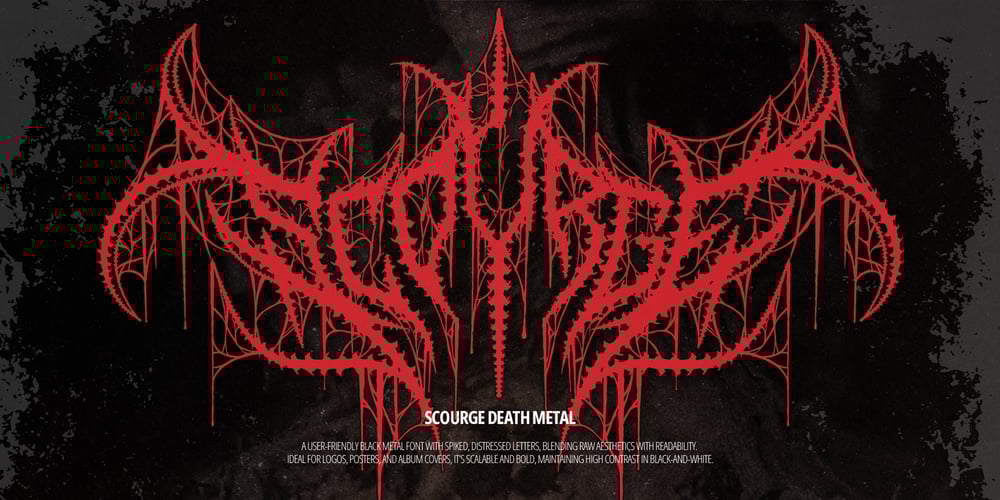
Scourge
Scourge font
Scourge Font Family was designed by Dede Nugraha and published by Denustudio. Scourge contains 1 styles and family package options. Scourge | Death Metal Font, from Denustudios, suitable for any projects such as: logos, branding projects, homeware designs, product packaging, mugs, quotes, posters, shopping bags, t-shirts, book covers, name card, invitation cards, greeting cards, label, photography, watermark, special events, and all your other lovely projects that need a Death Metal Font taste.===========================================================================What’s Included : Regular and Italic Web Font Standard glyphs Alternate and Ligature Works on PC & Mac Simple installations Accessible in the Adobe Illustrator, Adobe Photoshop, Adobe InDesign, even work on Microsoft Word and Other Software. PUA Encoded Characters – Fully accessible without additional design software. Fonts include multilingual support Hope you enjoy with our font!